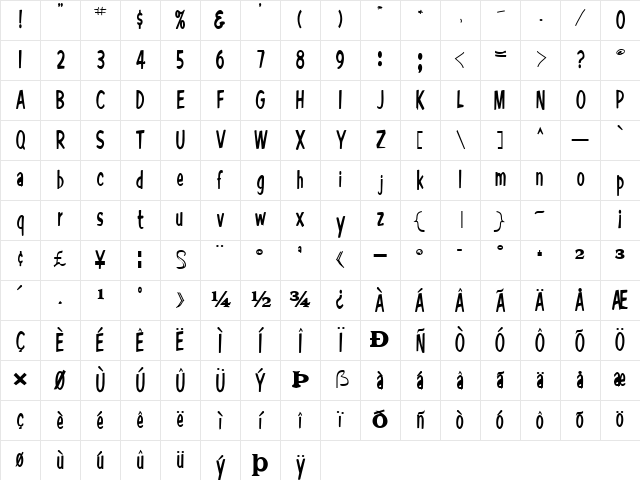
MoHawkLight82 Bold
MoHawkLight82 Family
Complete MoHawkLight82 Bold glyph index. Displaying only characters natively supported by MoHawkLight82 Bold font.
Design Context for MoHawkLight82
MoHawkLight82 is a composed and adaptable typeface that performs quietly and consistently across a wide range of design contexts. Its bold stroke weight gives it real presence on the page.